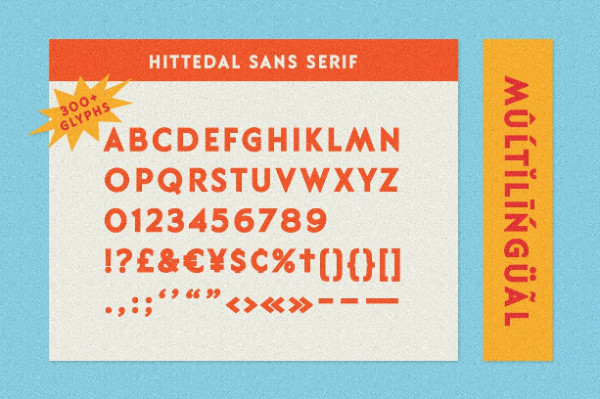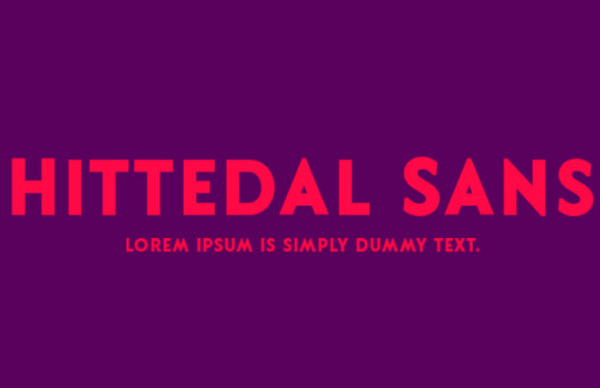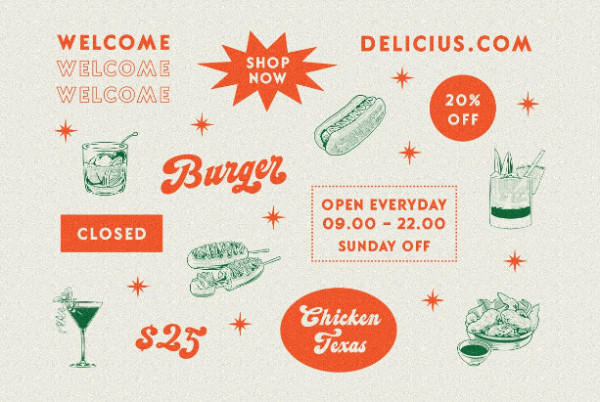
Hittedal Sans Font
Hittedal Sans Font – Hittedal, it is a display font for logotype. These collections contain bold script and sans serif font. This script font includes some alternates and ligatures. The Hittedal matches apply in some designs such as the logo, poster, label, badge, packaging, t-shirt, branding, quotes and more custom design.